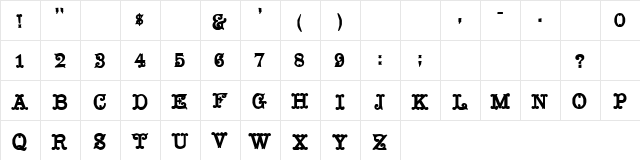
Mustachio Regular
Design Context for Mustachio Typeface
Mustachio takes a measured approach to typography — its balanced proportions and neutral character make it a reliable workhorse for both digital and print work.